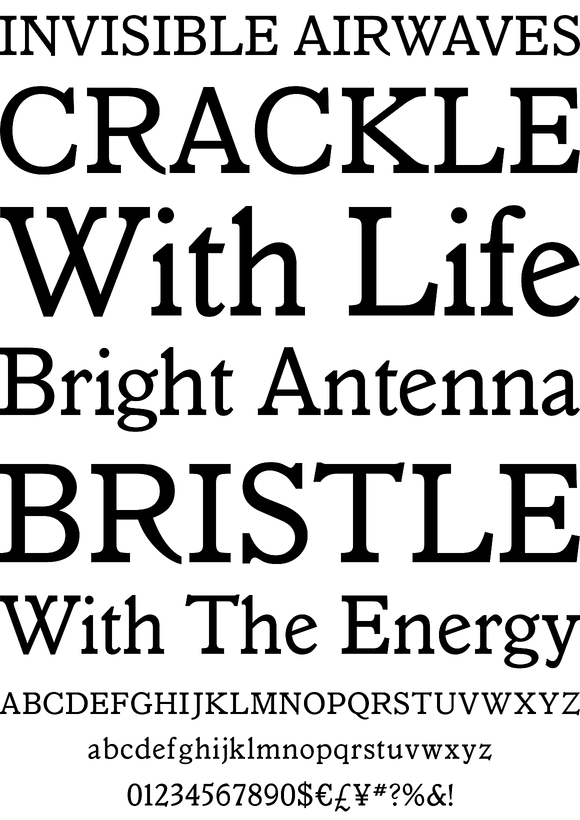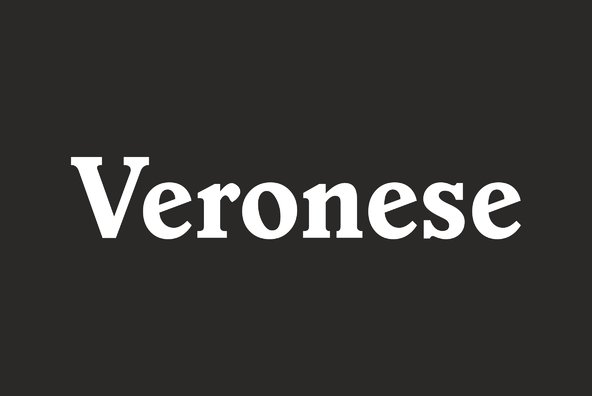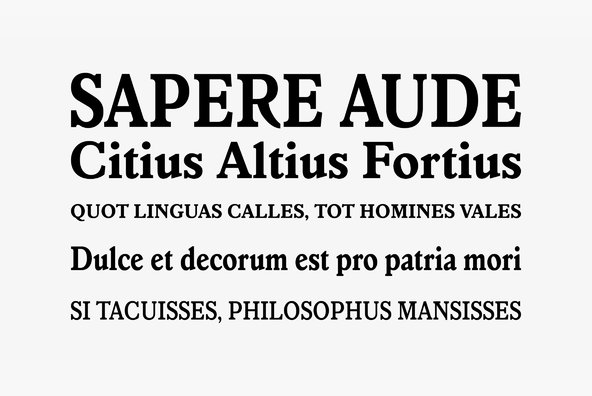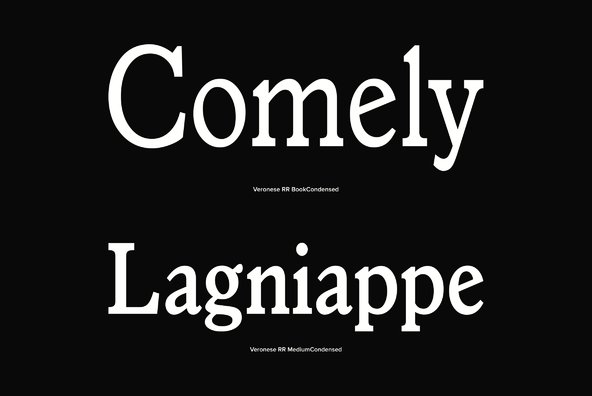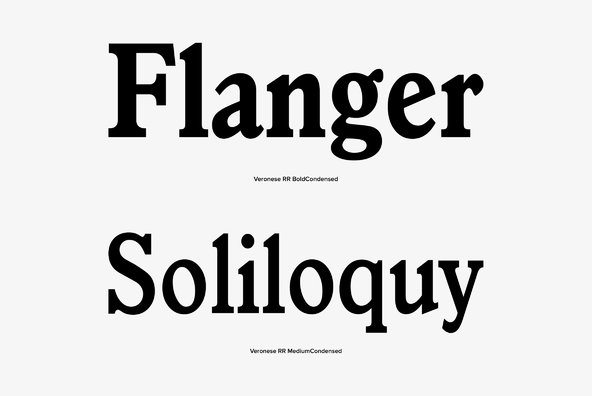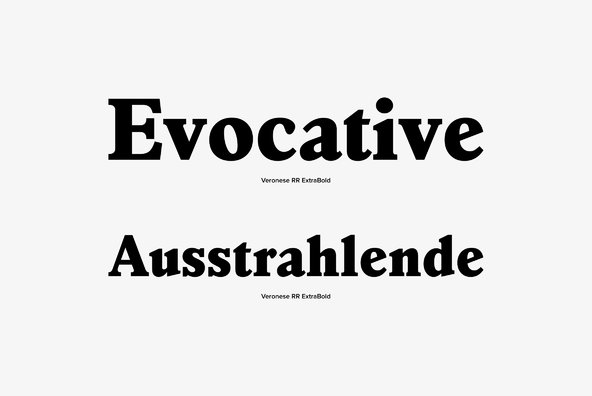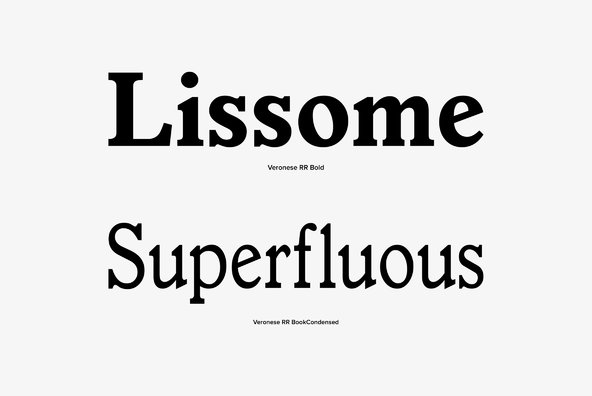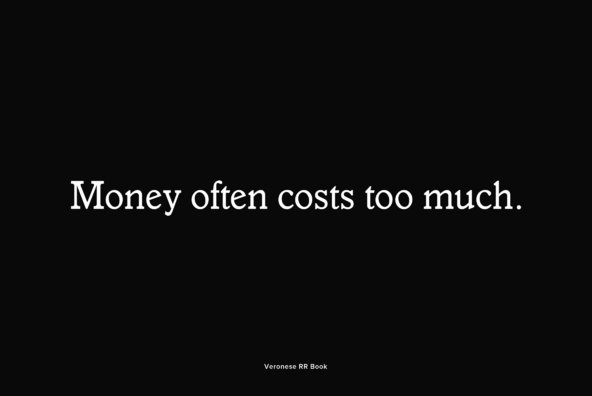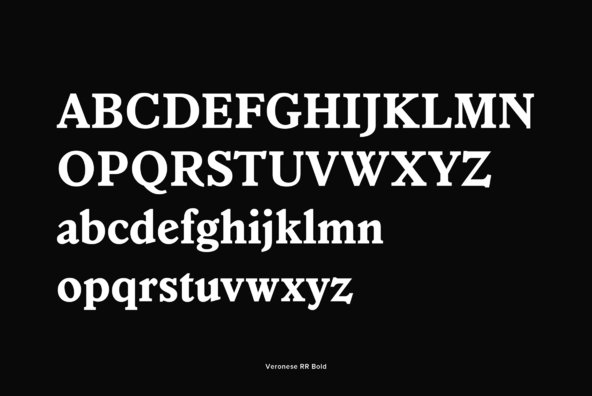
Veronese
Designed by Steve Jackaman, Veronese is based on the early original Monotype design, you can definitely see the influence of Italian Old Style, Jenson and Morris Golden Type.